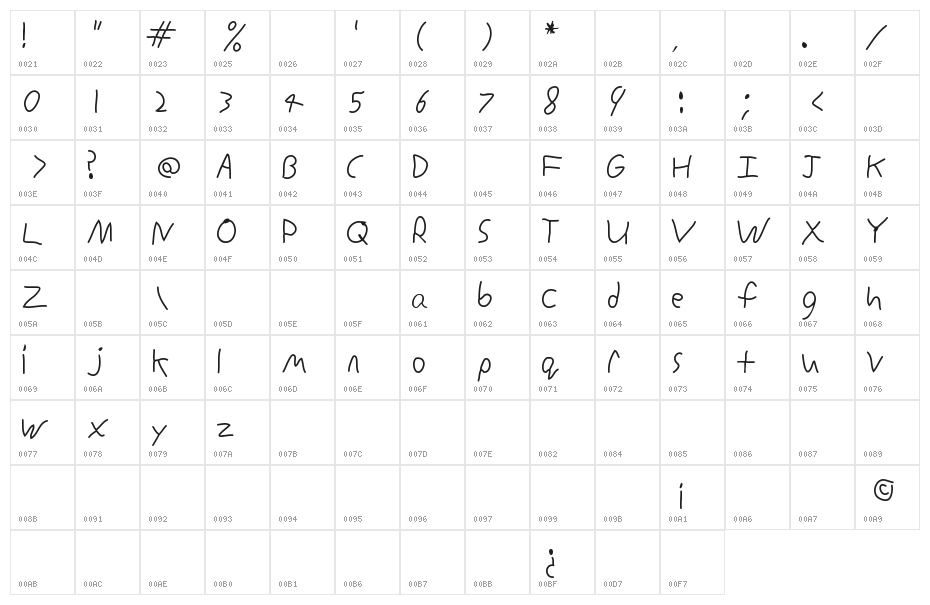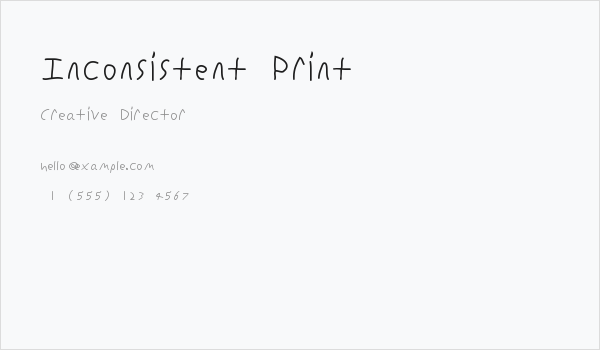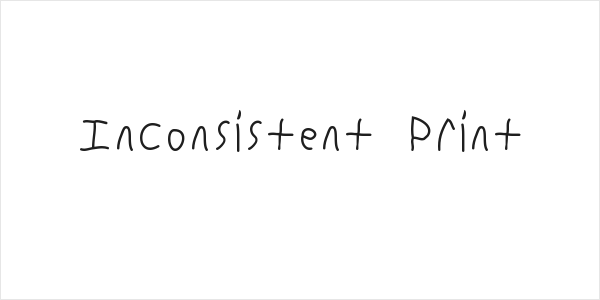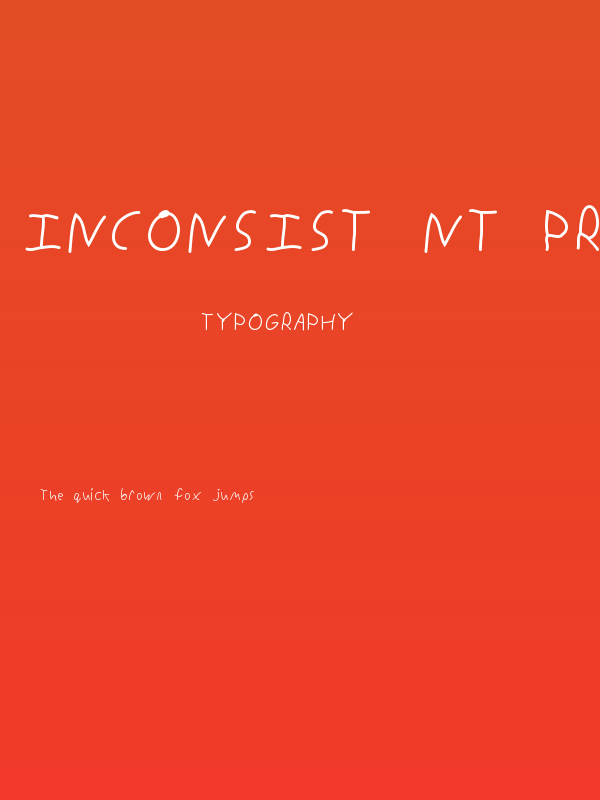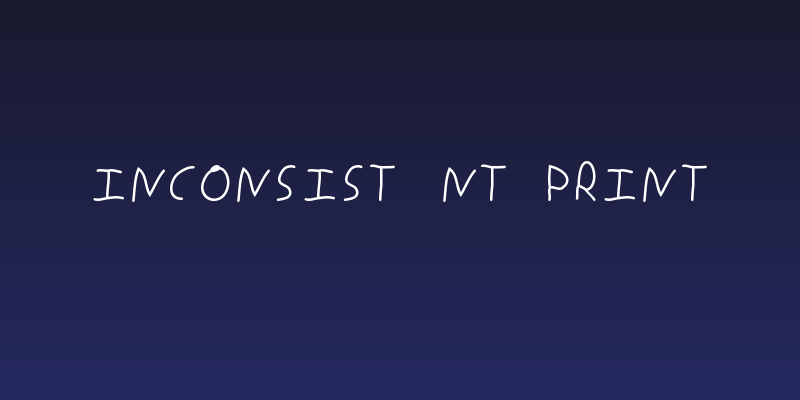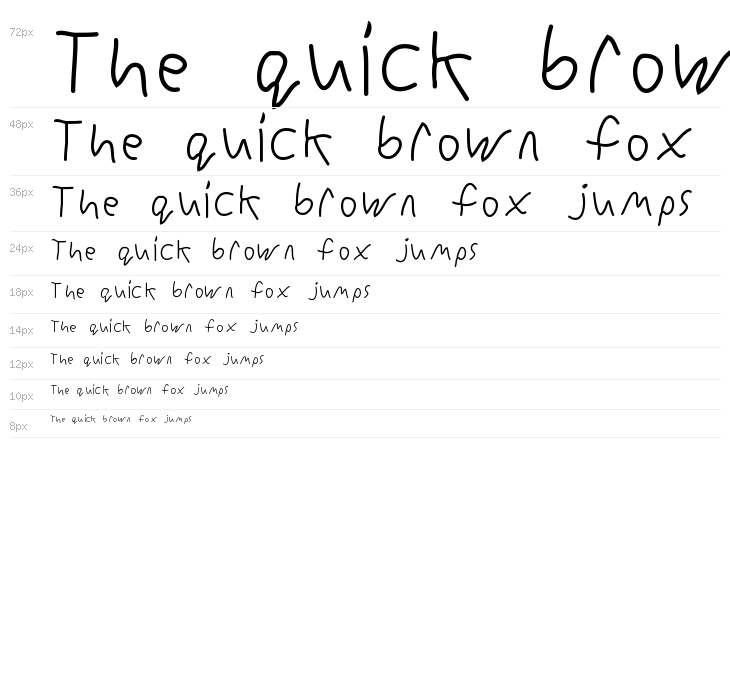
Inconsistent Print Font
Inconsistent Print Description
This font features a playful and informal handwritten style, characterized by its uneven strokes and casual appearance. The letters exhibit a natural, free-flowing form, reminiscent of a quick sketch or doodle. The uppercase and lowercase letters maintain a consistent height, yet each character has its own unique flair, contributing to the overall whimsical aesthetic. The numbers and special characters follow the same informal style, adding to the font's cohesive look. Its irregularity and charm make it suitable for projects that require a personal touch.